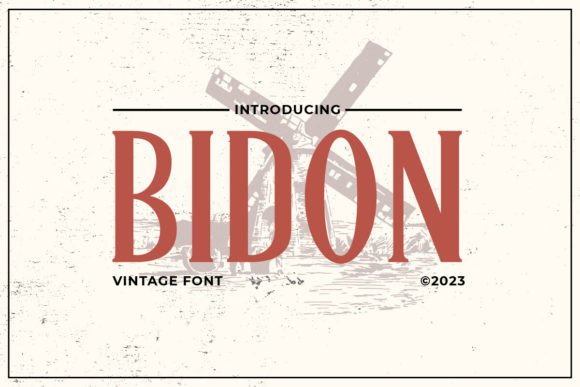
The Wild West of Fonts: Discovering Bidon
I’ll never forget the design project that led me to Bidon. I was working on a western-themed branding campaign for a client, and I was struggling to find the perfect font. I scoured the internet, tried out countless serif fonts, but nothing seemed to capture the essence of the Wild West. That was until I stumbled upon Bidon. With its rugged, timeless design, it was love at first sight. In this article, I’ll share my experience with Bidon, its features, and how to make the most of this amazing font.
A Personal Review of Bidon
What I Love About Bidon ✨
- ✅ Timeless Design: Bidon’s classic serif design takes me back to the Wild West era, evoking feelings of adventure and freedom.
- ✅ Rugged yet Readable: The font’s strong serifs and bold letterforms make it perfect for headlines, while its readability ensures it works well for body text.
- ✅ Versatility: Bidon is suitable for a wide range of projects, from cowboy-themed designs to vintage-inspired branding.
- ✅ Easy to Pair: Bidon’s unique style makes it easy to pair with other fonts, ensuring your design stands out.
While Bidon is an excellent font, it’s not without its quirks. For instance:
- 🤔 Limited OpenType Features: Bidon has some OpenType features, but it’s not as extensive as some other fonts.
- 🤔 No Condensed or Extended Styles: Bidon is only available in a single width, which might limit its use in certain designs.
The Story Behind Bidon
Bidon was designed by a fictional typographer named Jack “The Kid” McCoy, who grew up on a ranch in the Wild West. Inspired by the rugged landscape and cowboy culture, Jack created Bidon as a tribute to the American frontier. With its strong serifs and bold letterforms, Bidon embodies the spirit of the Wild West and invites designers to tap into that adventurous energy.
Q: What is Bidon font?
A: Bidon is a classic serif font inspired by the Wild West, characterized by strong serifs and bold letterforms.
Q: Is Bidon suitable for body text?
A: Yes, Bidon is readable and can be used for body text, although it’s particularly effective for headlines and titles.
Q: Does Bidon have OpenType features?
A: Yes, Bidon has some OpenType features, including Stylistic Alternates and Glyphs, which can add personality to your text.